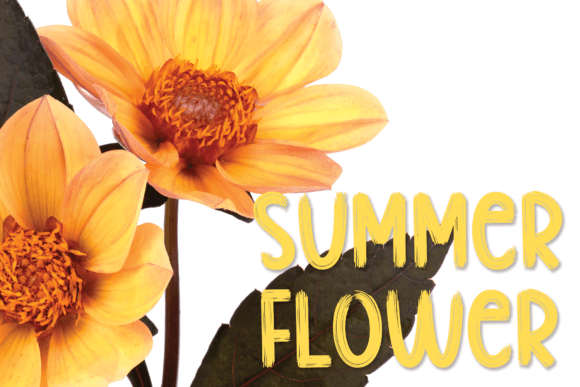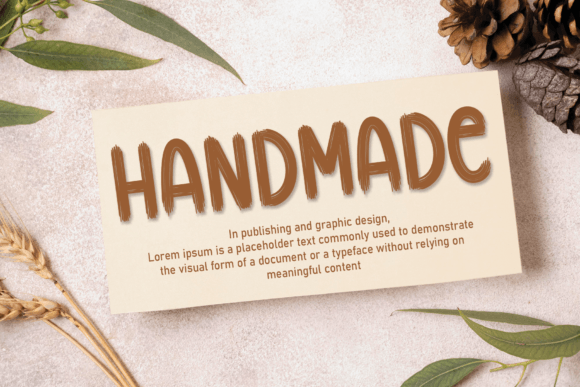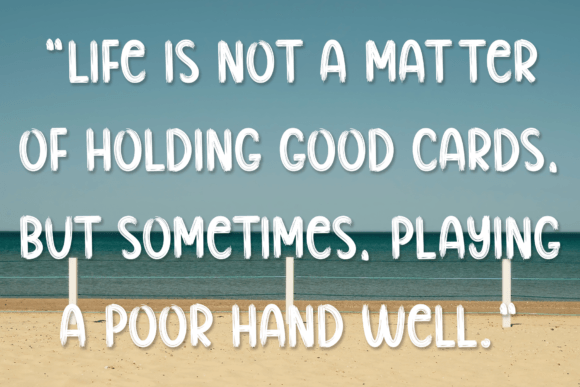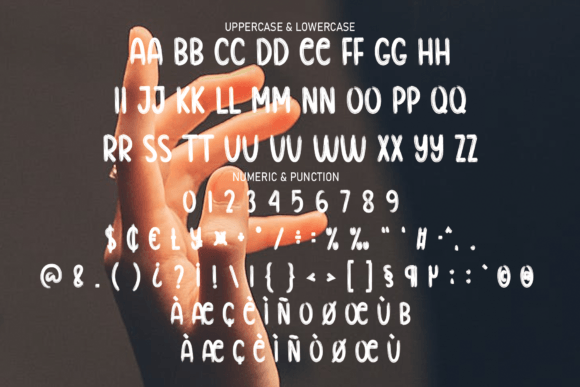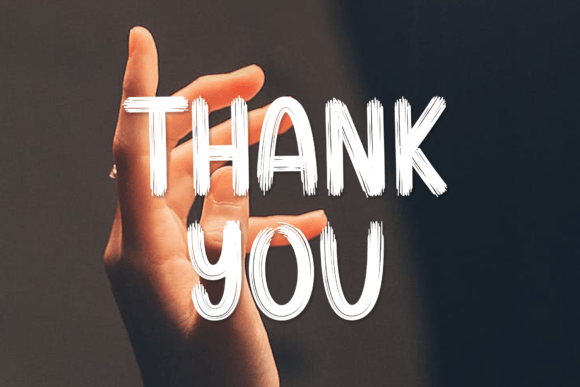
Finger Font: Elevate Your Designs with a Cool, Brush-Style Display Font
Are you tired of using the same old fonts in your designs? Do you want to add a touch of personality and whimsy to your creations? Look no further than Finger Font, a cool, brush-style display font that’s sure to become an incredible asset to your font library.
What is Finger Font?
Finger Font is a unique and stylish font that’s perfect for designers, crafters, and anyone looking to add a personal touch to their work. With its brush-style design, Finger Font has a distinctive, hand-painted look that’s sure to grab attention. Whether you’re working on a logo, a poster, or a social media graphic, Finger Font is the perfect choice.
Key Features of Finger Font
• Brush-style design: Finger Font has a distinctive, hand-painted look that’s perfect for adding a touch of personality to your designs.
• Display font: Finger Font is designed to make a statement, making it perfect for headlines, titles, and other display text.
• Versatile: Finger Font can be used for a wide range of projects, from logos and posters to social media graphics and more.
Why Use Finger Font?
So why should you use Finger Font in your designs? Here are just a few reasons:
• Add personality to your designs: Finger Font has a unique, hand-painted look that’s sure to add a touch of personality to your designs.
• Stand out from the crowd: With its distinctive design, Finger Font is sure to help your designs stand out from the crowd.
• Perfect for creative projects: Finger Font is perfect for creative projects, such as logos, posters, and social media graphics.
• Easy to pair with other fonts: Finger Font pairs well with a wide range of other fonts, making it easy to create visually appealing designs.
Tips and Tricks for Using Finger Font
Here are a few tips and tricks for using Finger Font:
• Use it sparingly: Finger Font is a bold, attention-grabbing font. Use it sparingly to add emphasis to your designs.
• Pair it with other fonts: Finger Font pairs well with a wide range of other fonts. Experiment with different pairings to find the one that works best for your design.
• Experiment with colors: Finger Font looks great in a wide range of colors. Experiment with different colors to find the one that works best for your design.
In conclusion, Finger Font is a cool, brush-style display font that’s sure to become an incredible asset to your font library. With its distinctive design and versatile uses, Finger Font is perfect for designers, crafters, and anyone looking to add a touch of personality to their work. Whether you’re working on a logo, poster, or social media graphic, Finger Font is the perfect choice.